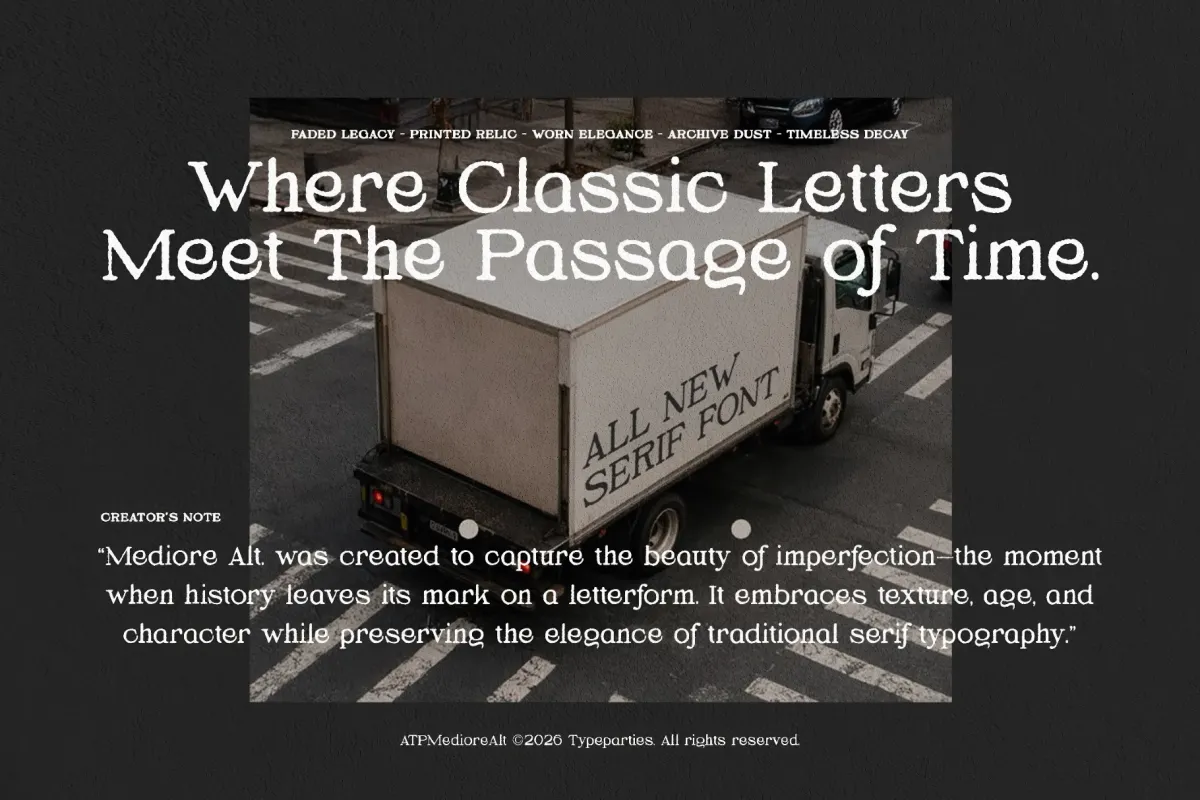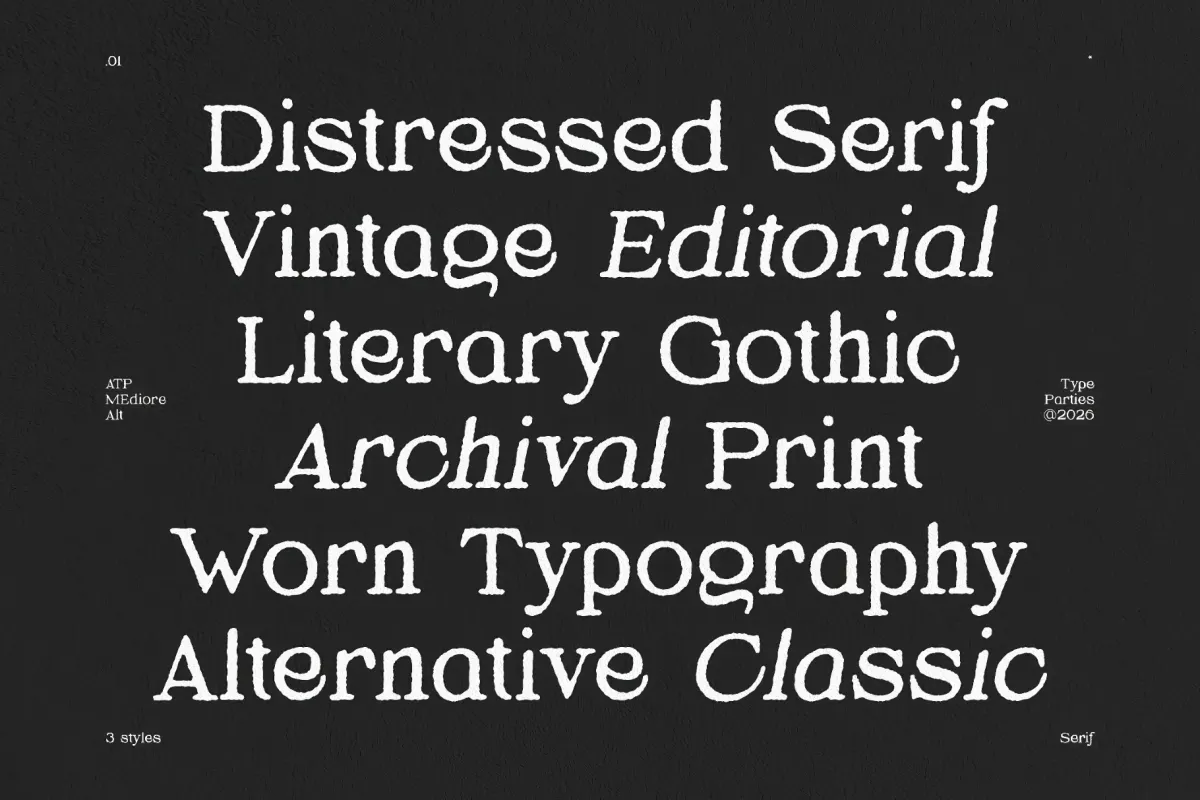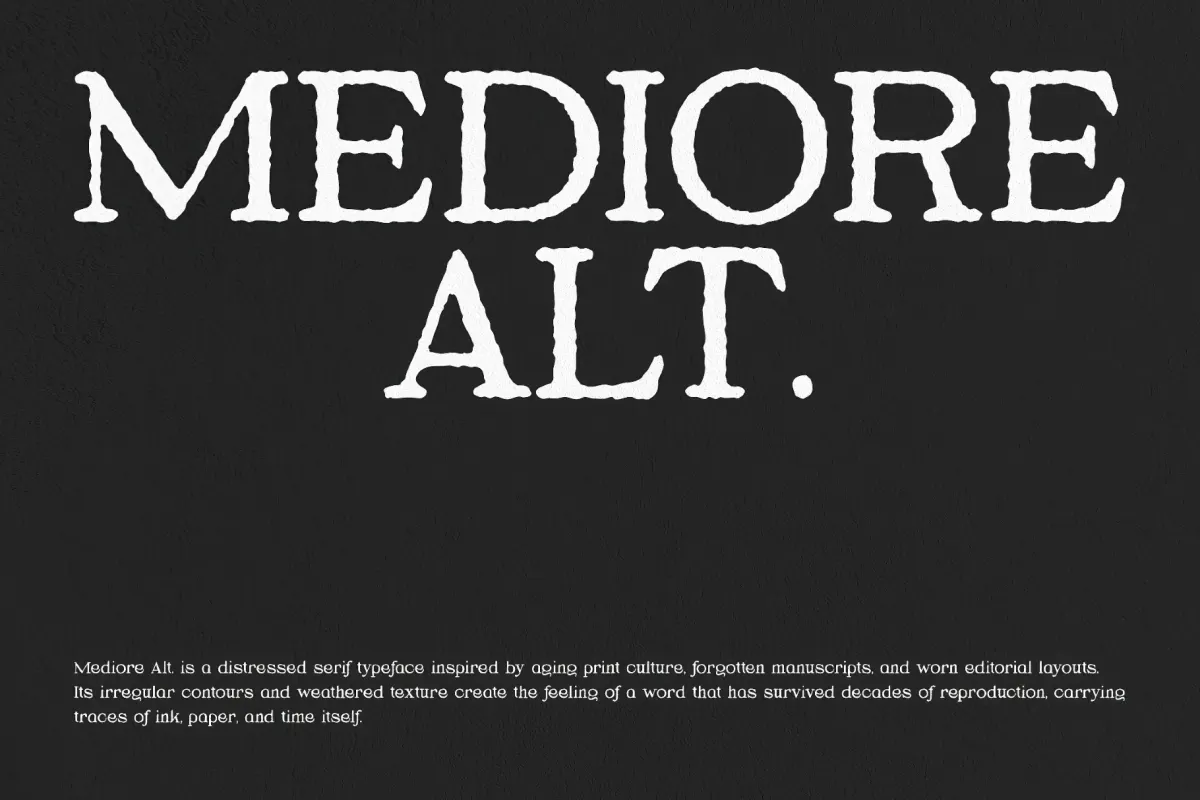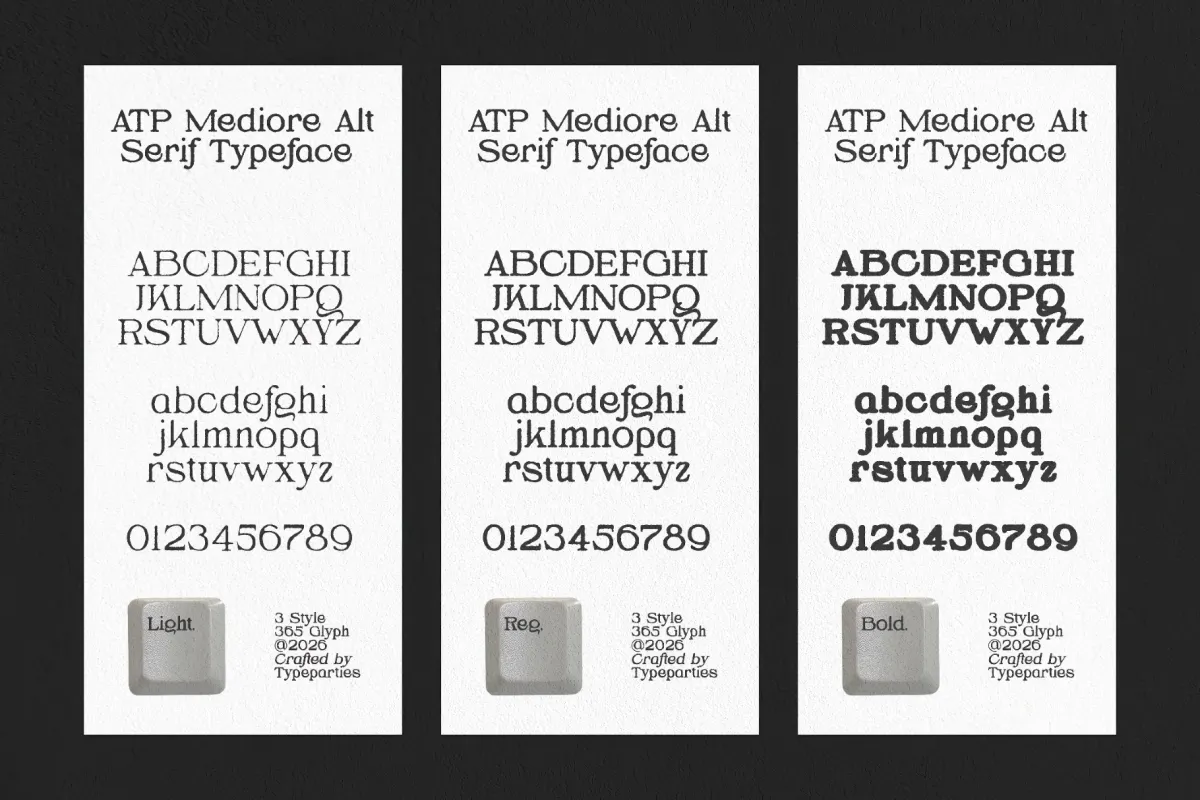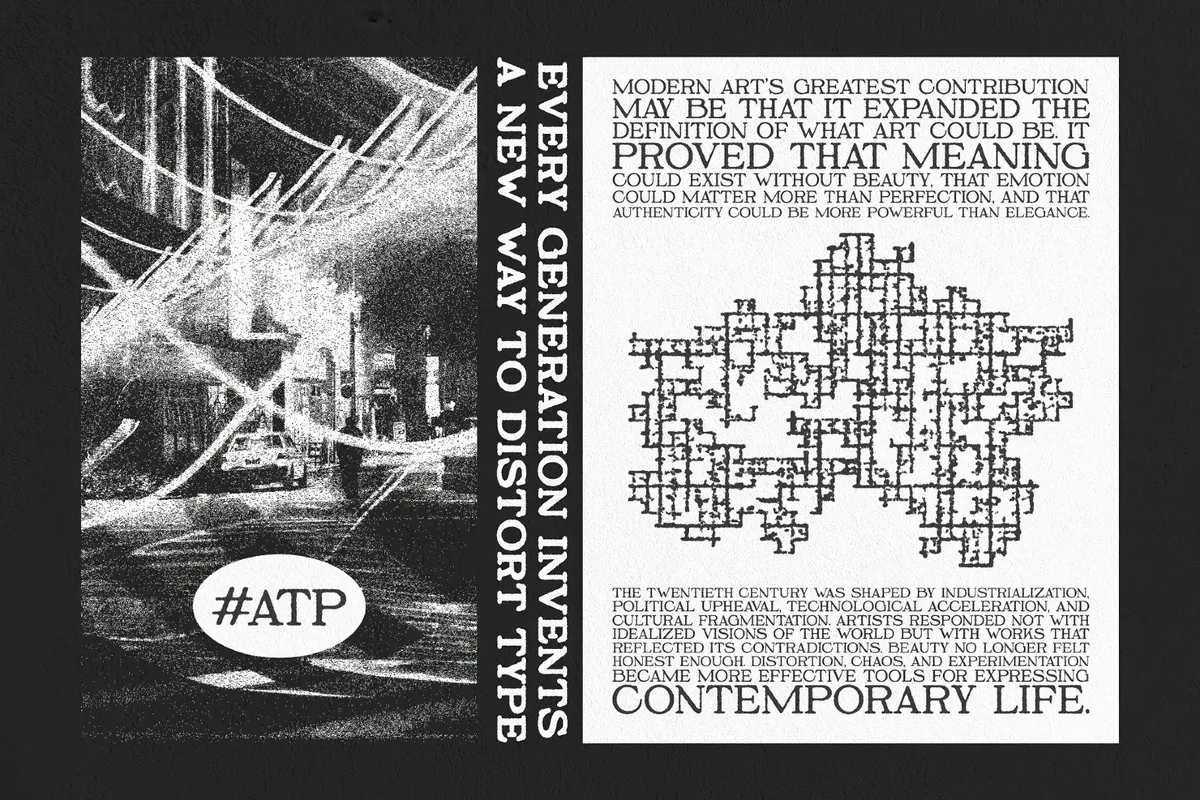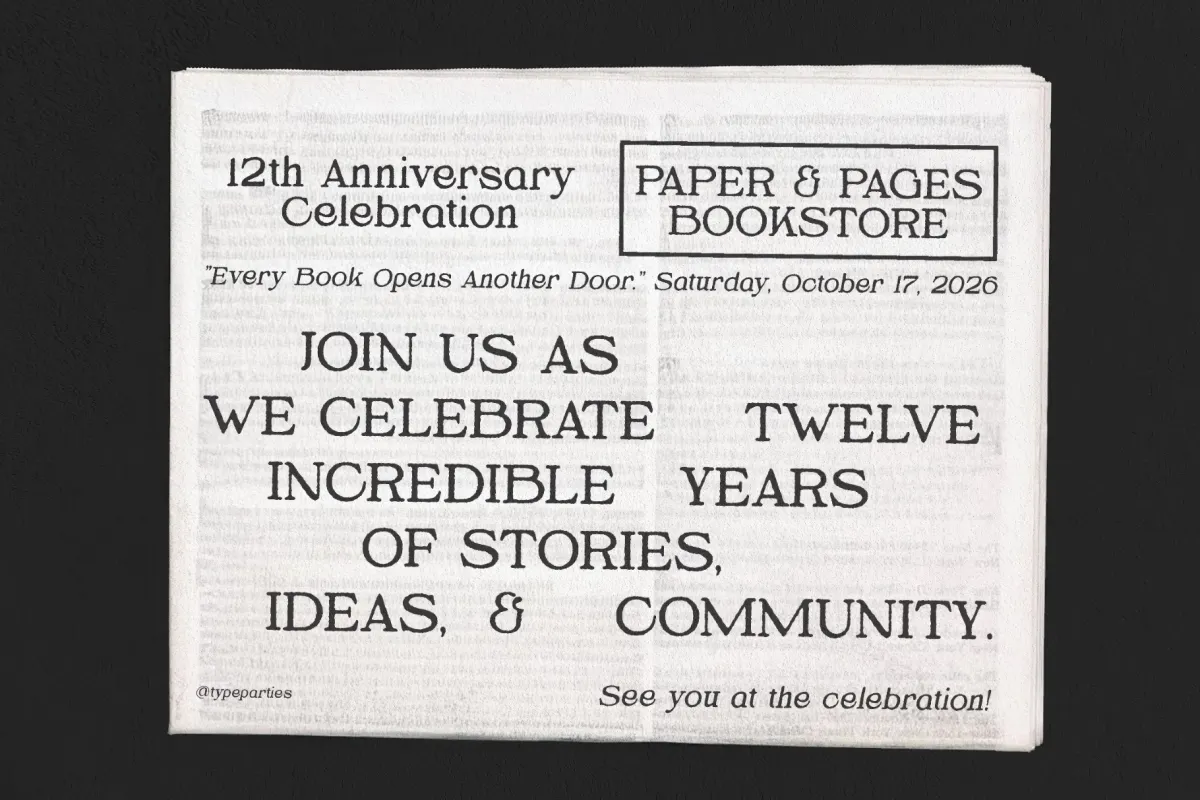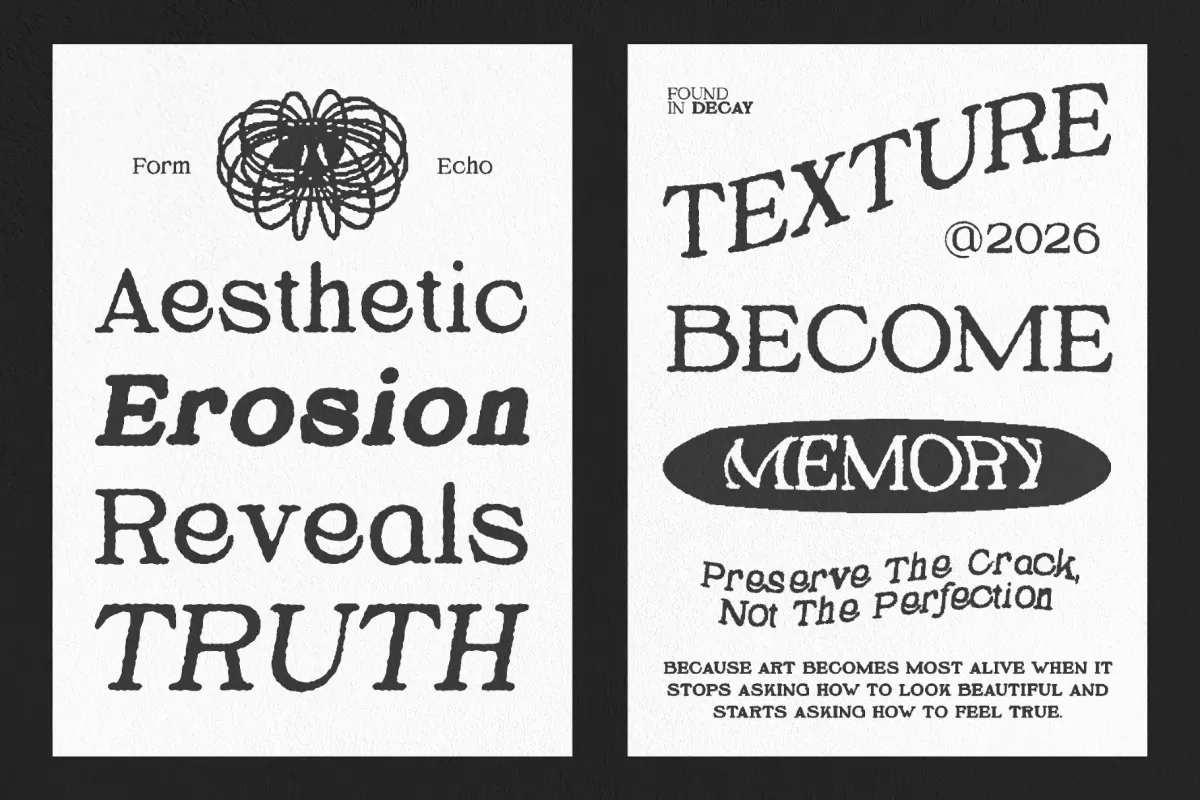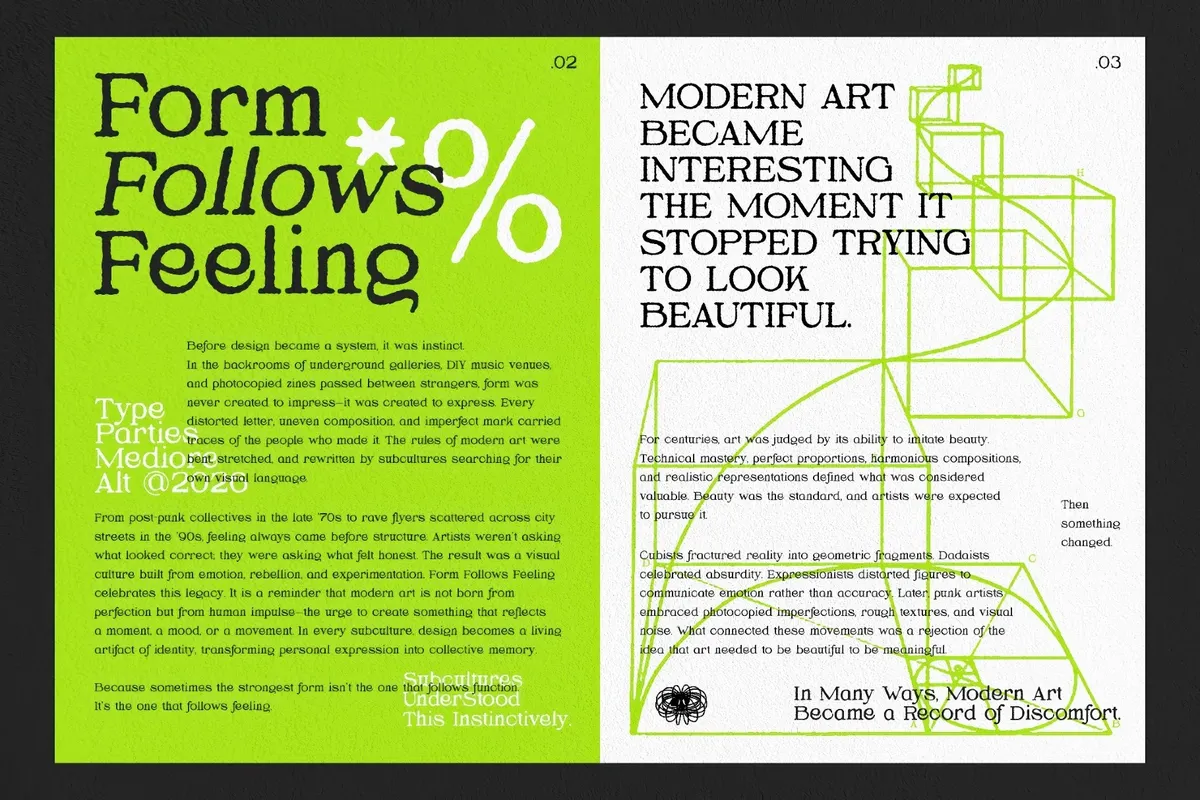
Mediore Alt – Distressed Serif Font
Mediore takes a slab serif built for old newsprint and roughs up every edge, letterforms carrying an inked, uneven outline instead of a clean vector line. Wavy strokes replace straight ones on the bold weight, and the italic leans into a looser, hand-set rhythm, giving each of the 3 styles its own worn character.